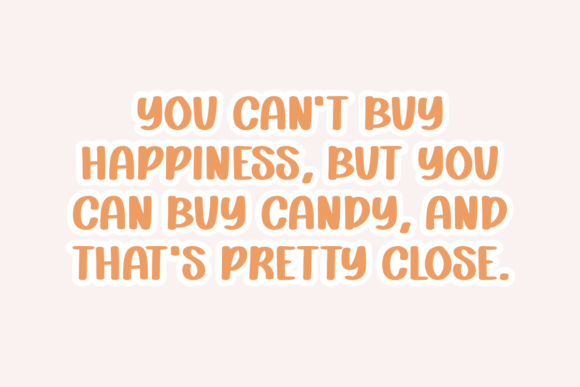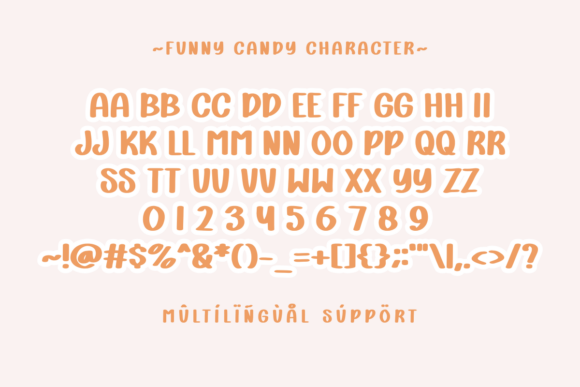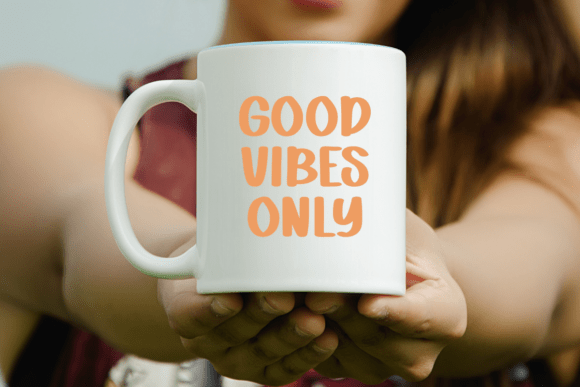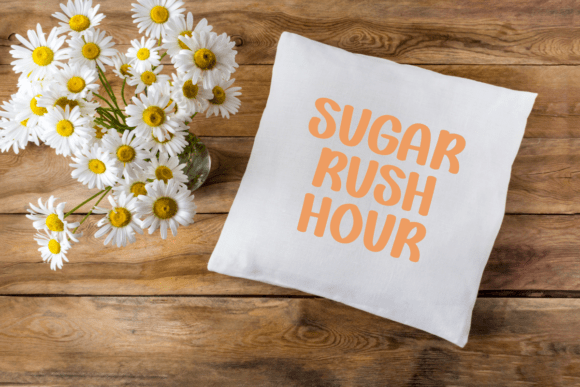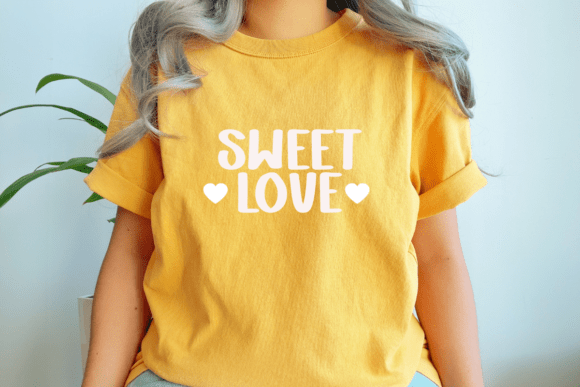
The Sweet Spot: Discovering the Funny Candy Font
I’ll never forget the time I was working on a wedding invitation project, and my client asked for a font that was “romantic, yet playful.” I scoured the internet, tried out dozens of fonts, but nothing seemed quite right. That was until I stumbled upon the Funny Candy font. Its charming handwriting style and whimsical vibe instantly won me over. In this article, I’ll share my experience with Funny Candy, its features, and how to make the most of it in your designs.
A First Impression: What Makes Funny Candy Special
Funny Candy is a handwriting font that exudes a sense of warmth and playfulness. Its smooth curves and hand-drawn feel make it perfect for romantic designs, wedding invitations, heartfelt branding, and elegant social media graphics. This font strikes a beautiful balance between modernity and whimsy, making it an excellent choice for creative and love-inspired projects.
An Honest Review: The Good and the Quirky
Here’s what I love about Funny Candy:
- ✨ Smooth, flowing curves that give it a natural, hand-written feel
- ✅ Perfect for romantic and whimsical designs, such as wedding invitations and love-themed branding
- 🎉 Versatile style that pairs well with both modern and traditional design elements
- 💕 The font’s warm and playful personality shines through in every character
As for quirks, I noticed a few things:
- 🤔 Some characters may appear a bit narrow or wide, which could affect spacing in certain designs
- ⚠️ The font might not be the best choice for very formal or corporate designs, as it leans more towards playfulness
The Story Behind Funny Candy
Funny Candy was designed by a talented type designer who wanted to create a font that captured the essence of playful, handwritten script. Inspired by childhood memories of writing letters and making candy-themed crafts, the designer aimed to create a font that was both modern and nostalgic. The result is a charming, whimsical font that’s perfect for designs that need a touch of warmth and personality.
| Font Name | Funny Candy Font |
| Author | CraftedType Studio |
| What type of designs is Funny Candy best suited for? | Funny Candy is perfect for romantic designs, wedding invitations, heartfelt branding, and elegant social media graphics. |
| Does Funny Candy support OpenType features? | Yes, Funny Candy supports OpenType features, including glyphs and stylistic alternates. |